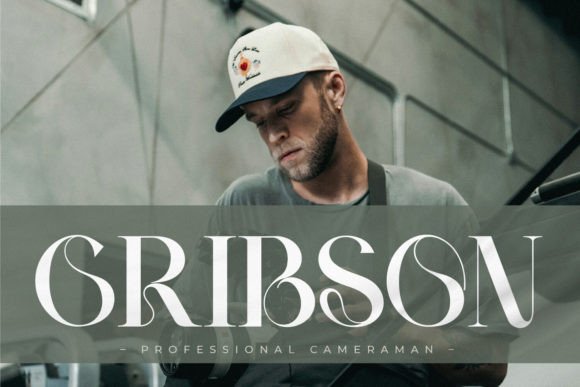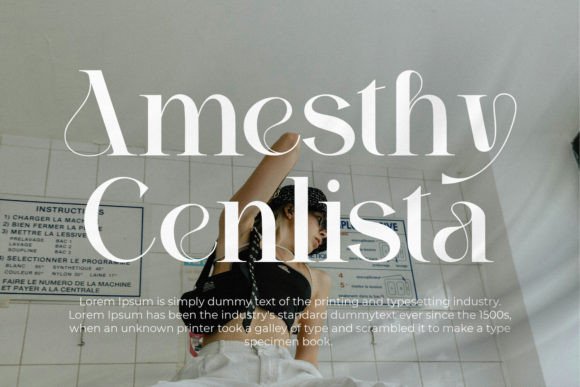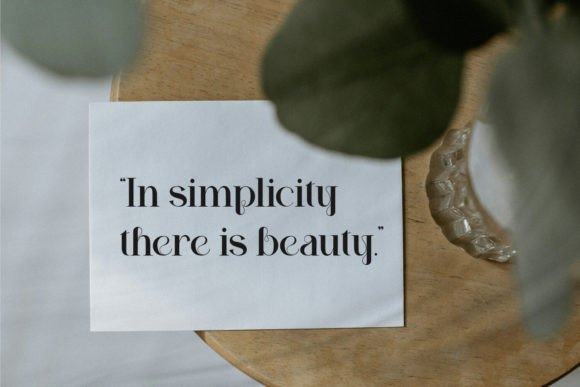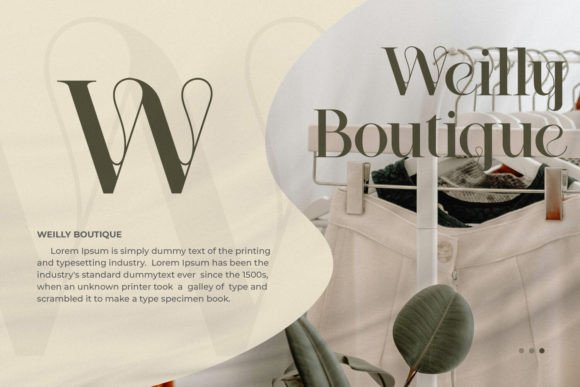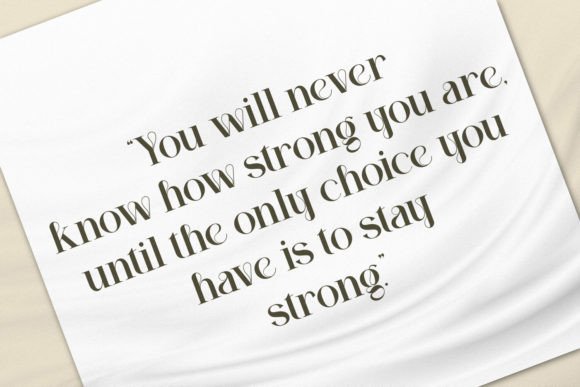
Moitex Font – Free Download
Introduction to Moitex Font
Moitex is a modern and stylish serif font that marries clean lines with subtle curves for a contemporary look.
Perfect for editorial designs, luxury branding, and web typography, its sophisticated presence enhances every composition Choose Moitex for a touch of modern elegance in your creative projects.
Key Features of Moitex Font
Why Choose Moitex Font?